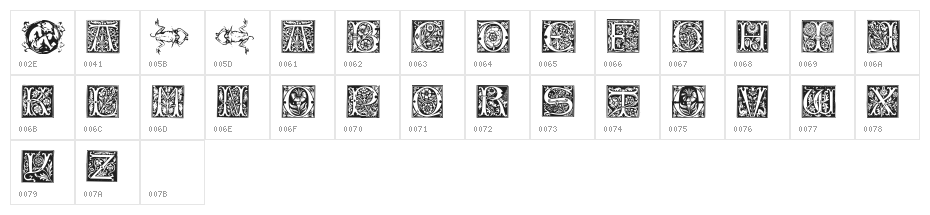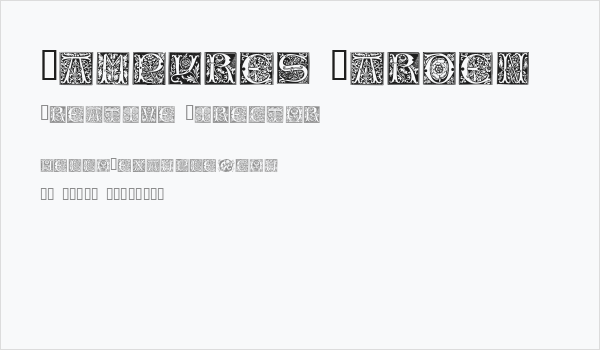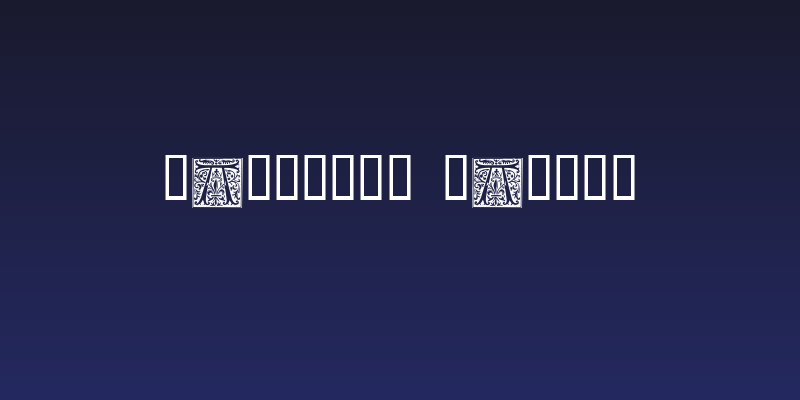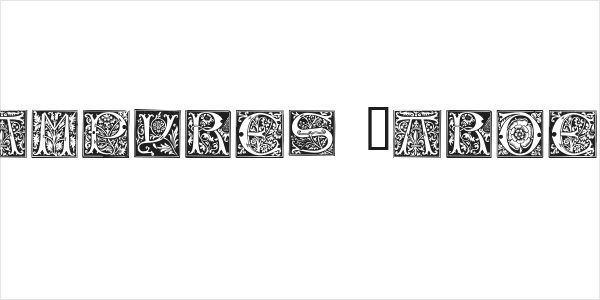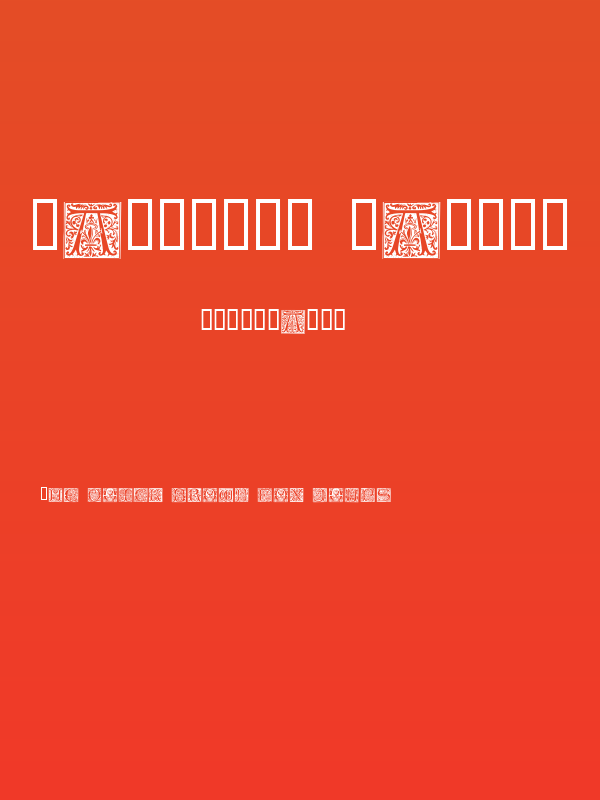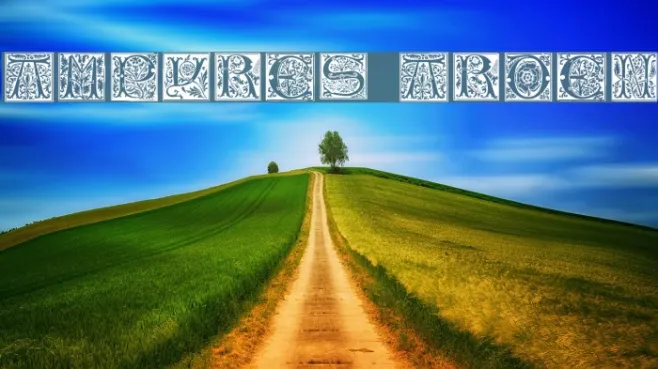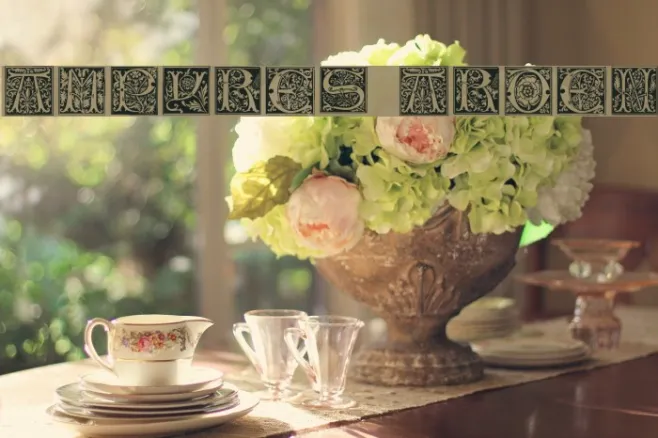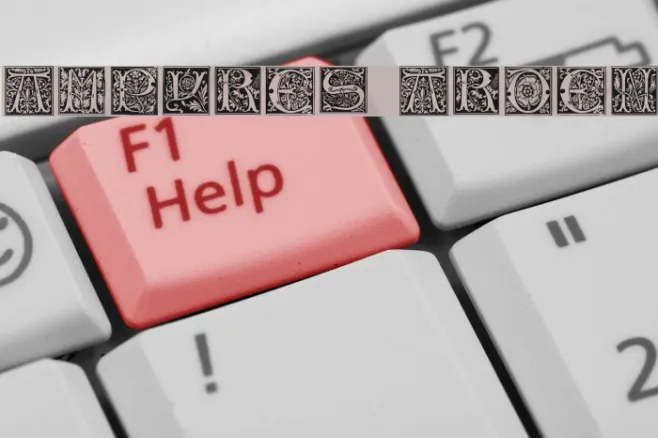
Vampyres Garden Font
Vampyres Garden Description
This font features an intricate and ornate design, with each letter encapsulated in a decorative box filled with elaborate floral and vine motifs. The uppercase letters are highly stylized, reminiscent of medieval or gothic art, with a strong emphasis on decorative elements. The detailed embellishments create a sense of elegance and historical charm, making it ideal for projects that require a touch of sophistication and artistic flair. The font's unique style is both eye-catching and memorable, perfect for creating a dramatic visual impact.
| Overall Style | Vintage |
| Use Case | Logos, Headlines, Decorative text |
| Proposed Projects | Ideal for wedding invitations, vintage-themed posters, book covers, and branding that requires a historical or artistic touch. |